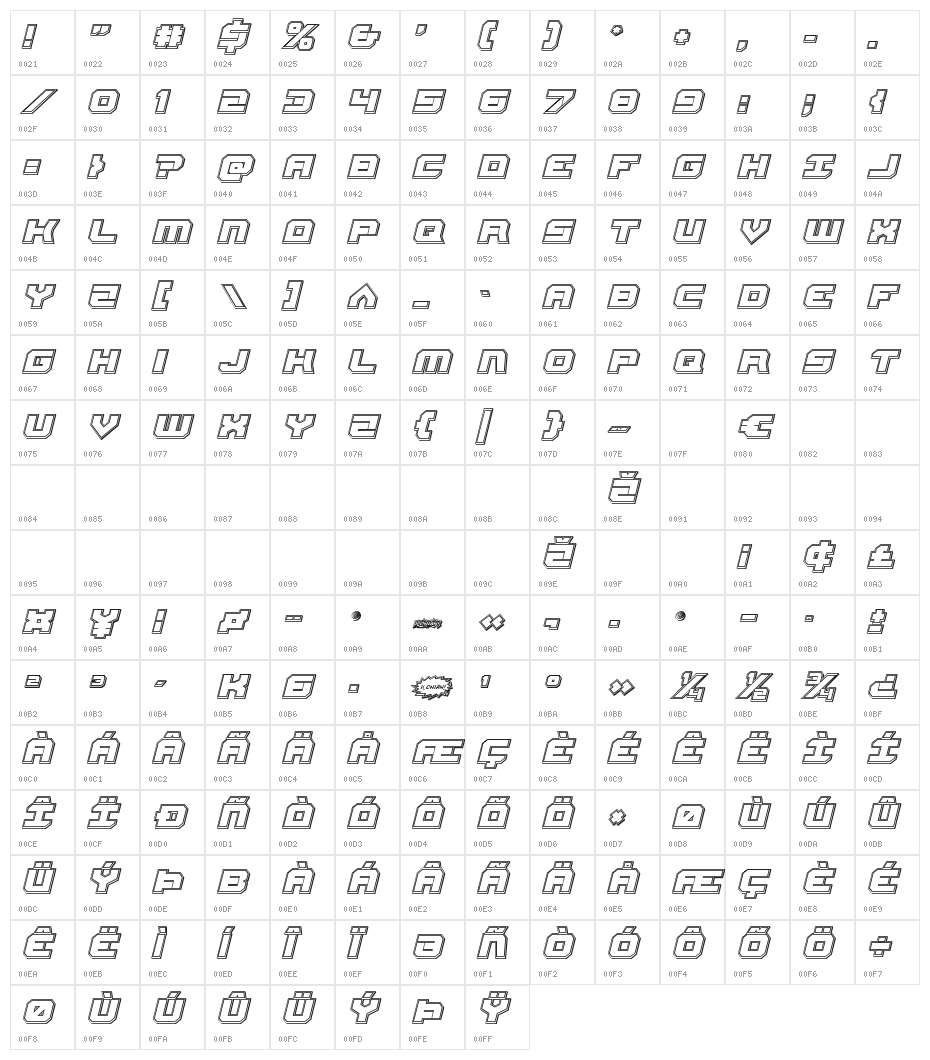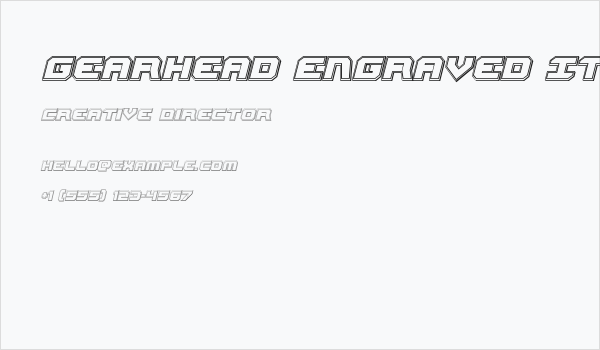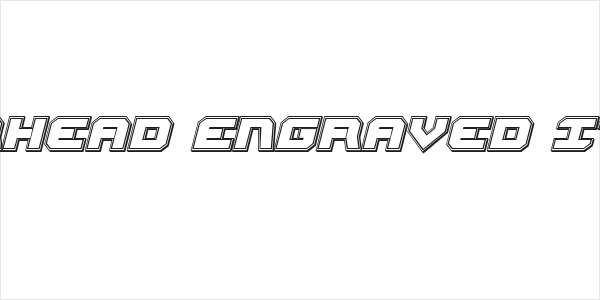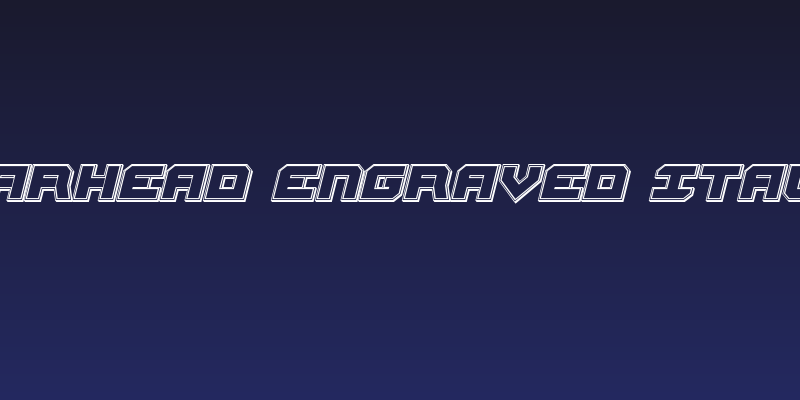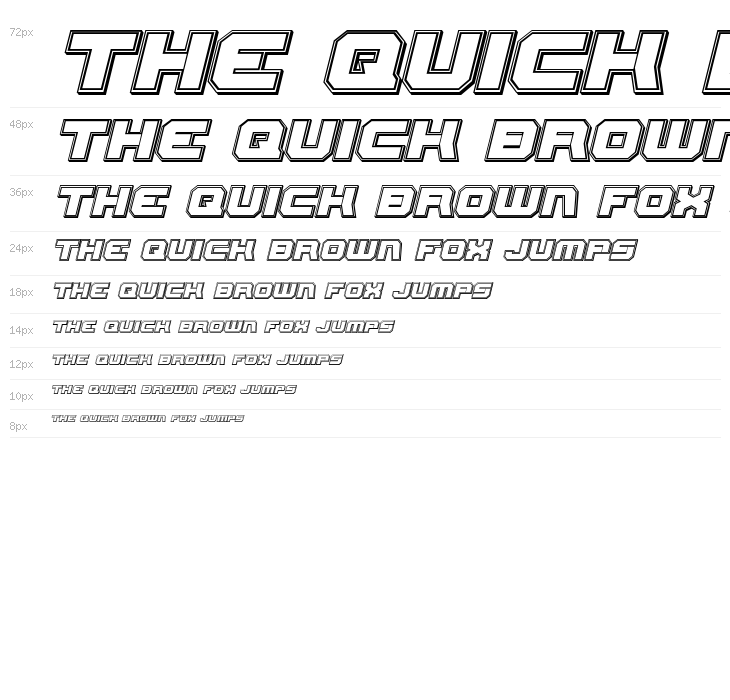
Gearhead Engraved Italic Font
Gearhead Engraved Italic Description
This font features a bold, angular design with a distinct engraved effect, giving it a three-dimensional appearance. The italic slant adds a dynamic and forward-moving feel, while the sharp edges and geometric shapes convey a sense of modernity and strength. The characters are outlined with a double line, enhancing the engraved look and providing a striking visual impact. The uppercase letters are consistent in height and width, maintaining a uniform appearance across the alphabet. The numbers and special characters follow the same stylistic cues, ensuring cohesion throughout the font set.